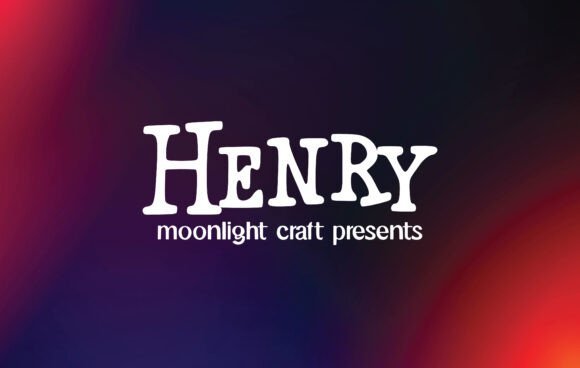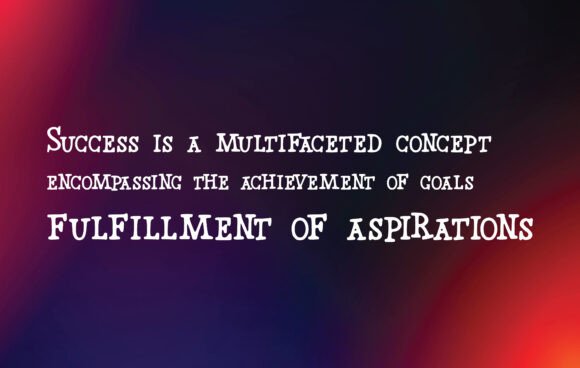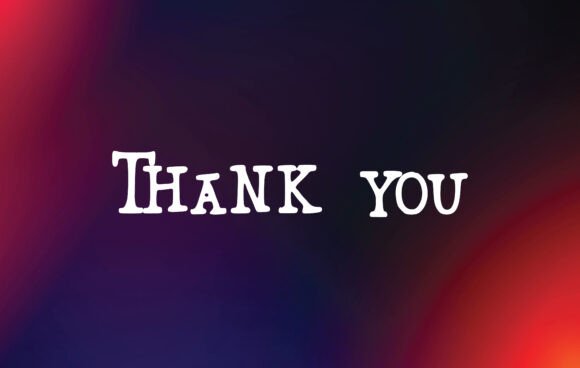
The Perfect Blend of Creativity and Style: Introducing Henry Font
There’s nothing quite like the rush of creative energy that comes when a new idea sparks to life. You’re sitting at your desk, surrounded by scraps of paper, scribbled notes, and half-finished sketches. Your mind is racing with possibilities, and you can feel the excitement building as you bring your vision to life. But sometimes, all it takes is the right tool to take your ideas to the next level.
Enter Henry Font, a beautifully crafted handwritten font that’s perfect for creating eye-catching logos, branding, and quotes. With its elegant and sophisticated design, Henry Font is the ideal choice for designers looking to add a touch of personality to their work. Whether you’re working on a personal project or a client’s brief, Henry Font is sure to impress.
Henry Font Key Features
- Font Family: Henry Font is a serif font family designed for body text and titles.
- Unique Characteristics: Henry Font features a classic, elegant design with subtle flair and refined details, making it suitable for a wide range of applications, from book publishing to advertising and branding.
Henry Font Review
Overall, I found Henry Font to be a solid choice for typography, but with a few areas where it falls short. Let’s dive into the details.
- Modern aesthetic: Henry Font has a sleek, modern look that works well for digital interfaces.
- High legibility: The font is highly legible, making it easy to read on screens of all sizes.
- Good font pairing options: Henry Font pairs well with a variety of other fonts, making it easy to create visually appealing typography.
- Limited character set: Henry Font has a relatively small character set, which can be limiting for languages with complex scripts.
- No bold or italic variants: While the font is highly legible, it would be nice to have bold and italic variants to add some visual interest.
- May not work well for print: Henry Font is optimized for digital interfaces and may not translate well to print materials.
Overall, Henry Font is a solid choice for digital typography, but may not be the best fit for more complex or print-based projects. With some careful pairing and consideration of its limitations, it can be a great addition to your design toolkit.
Tips for Getting the Most Out of Henry Font
Henry Font is a versatile font that can be used in a variety of contexts. Here are some tips for getting the most out of it:
- Use Henry Font for titles and headings to add a touch of elegance and sophistication.
- Pair Henry Font with other fonts to create a unique and eye-catching visual style.
- Experiment with different font sizes and styles to create a dynamic and engaging